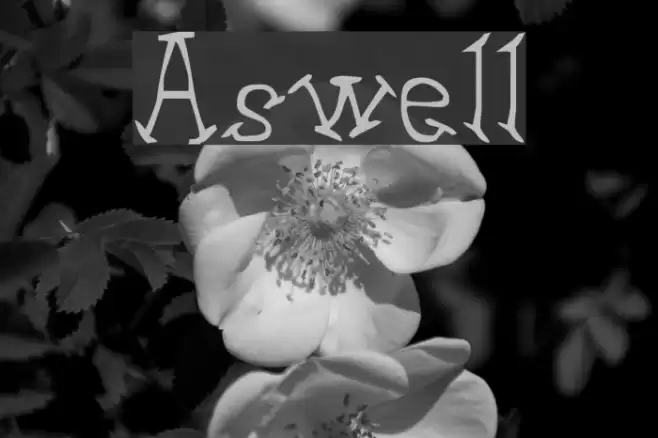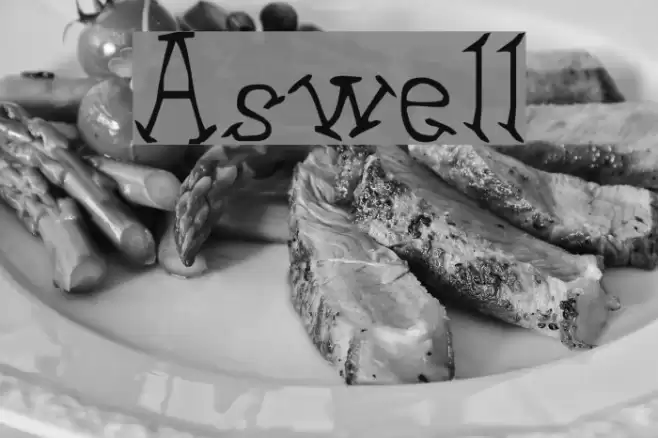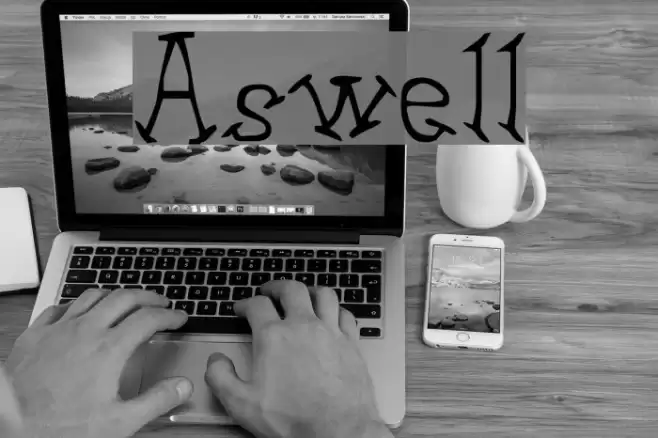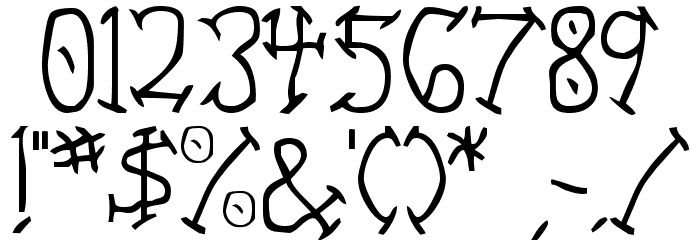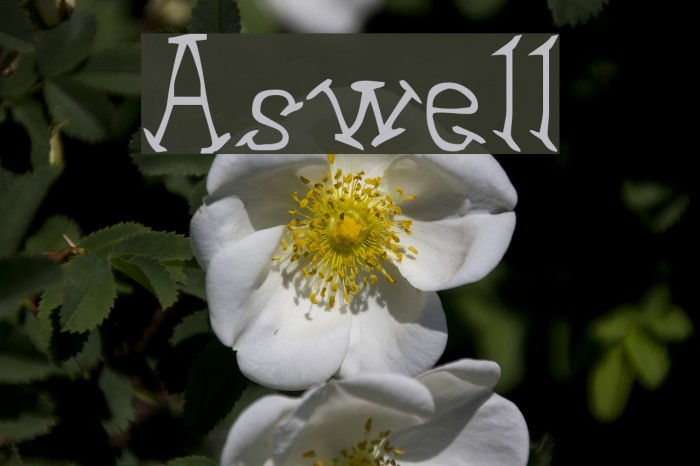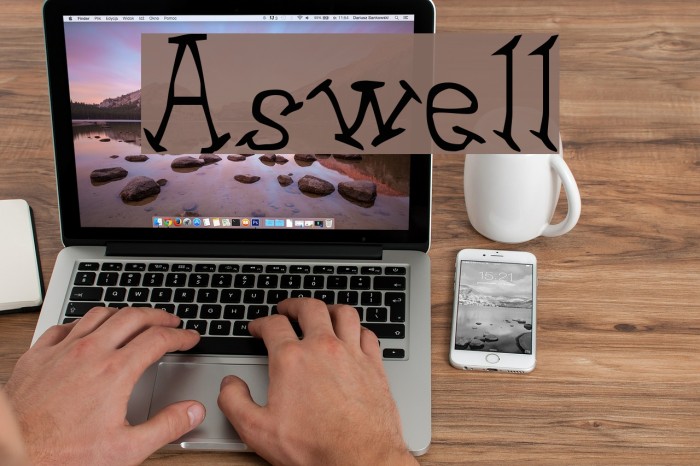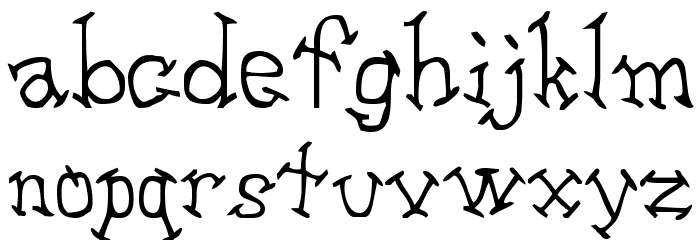
Aswell Font
Aswell Description
This font features a unique and playful design with arrow-like serifs that give it a whimsical and adventurous feel. The characters are bold and slightly irregular, adding to the quirky charm. The uppercase letters are distinct with exaggerated serifs, while the lowercase letters maintain a consistent style, ensuring readability. Numbers and special characters follow the same playful theme, making this font ideal for creative projects. The overall style is decorative, with a touch of fantasy, suitable for capturing attention and adding character to any design.
A whimsical, decorative font with arrow-like serifs and playful character design from Handwritten fonts.
- Proposed Projects: Ideal for children's books, fantasy-themed posters, creative branding, and playful invitations.